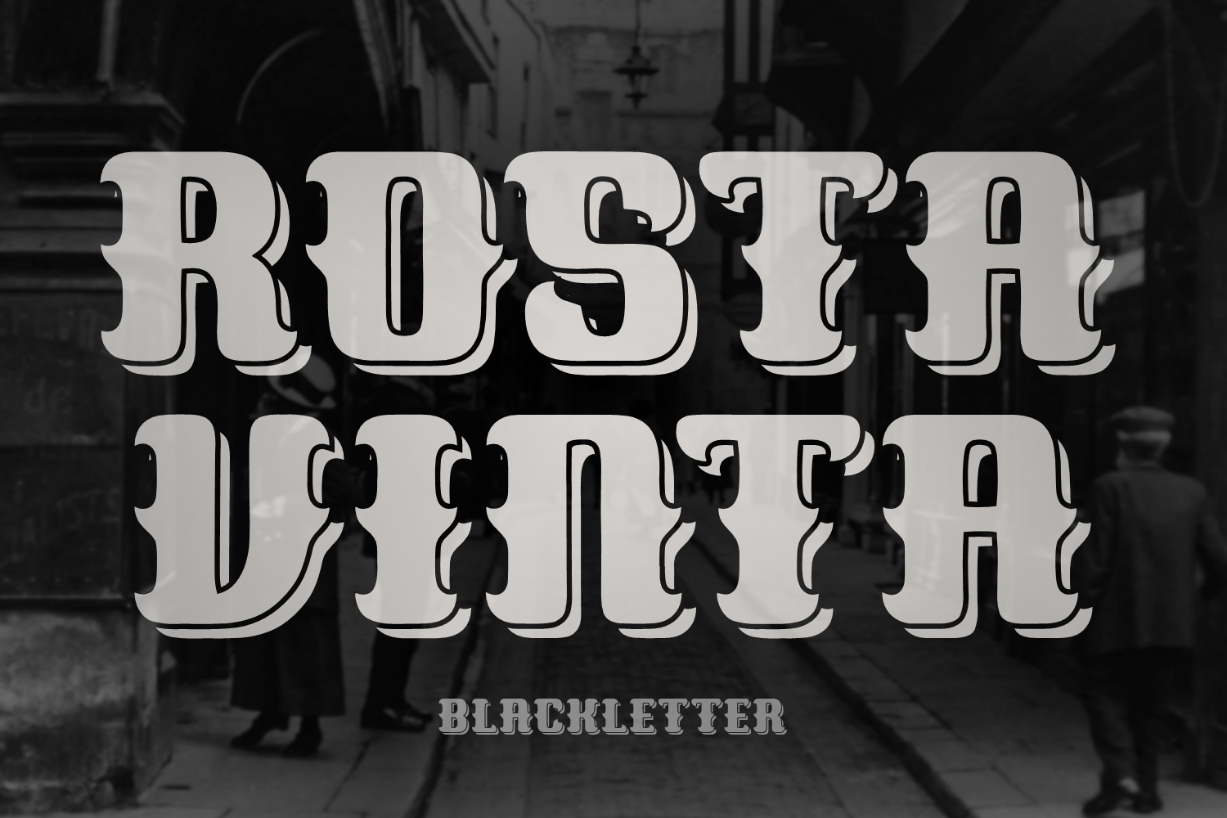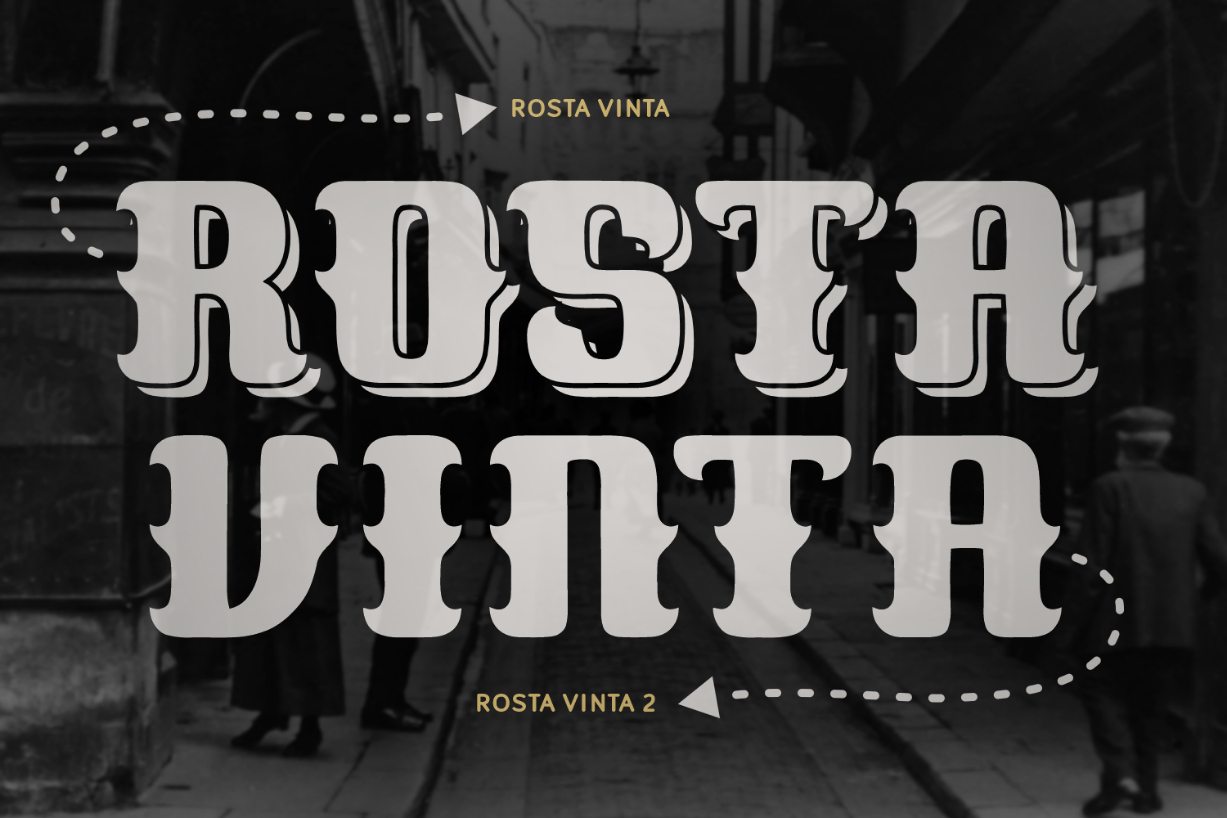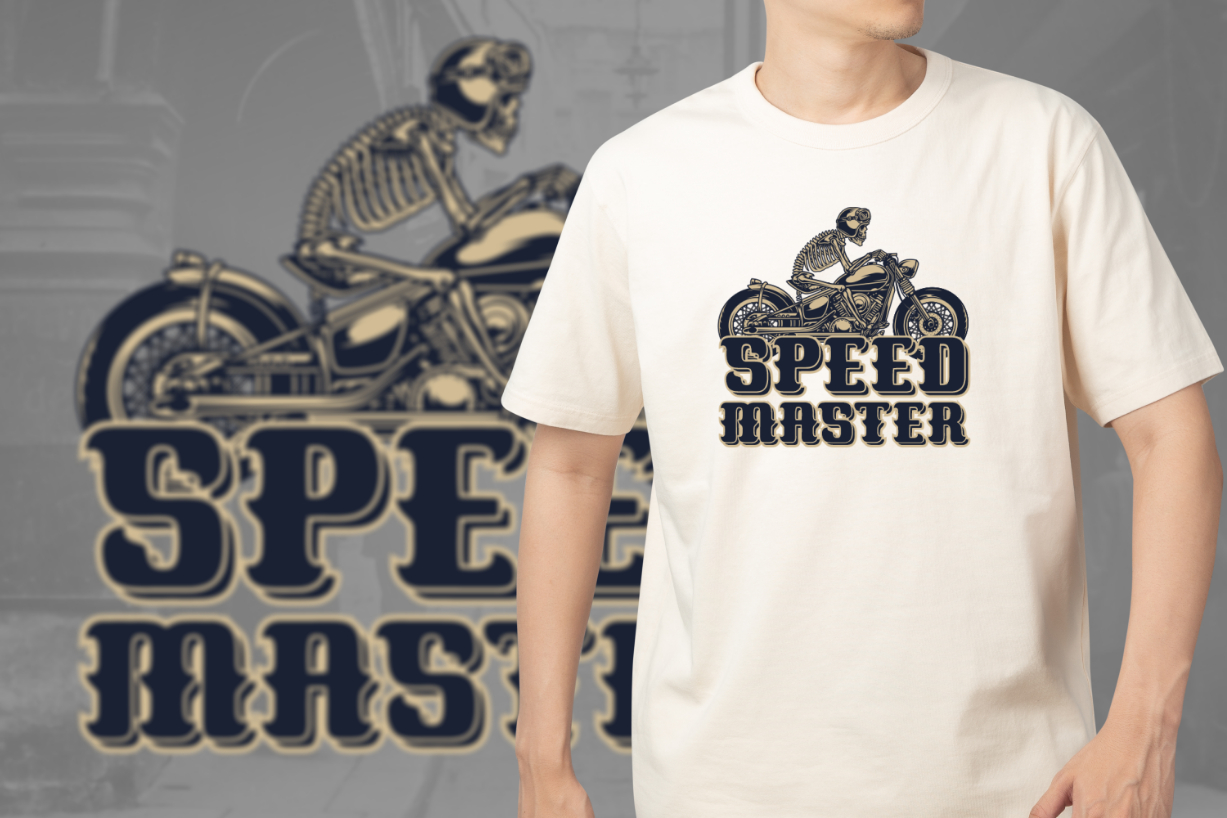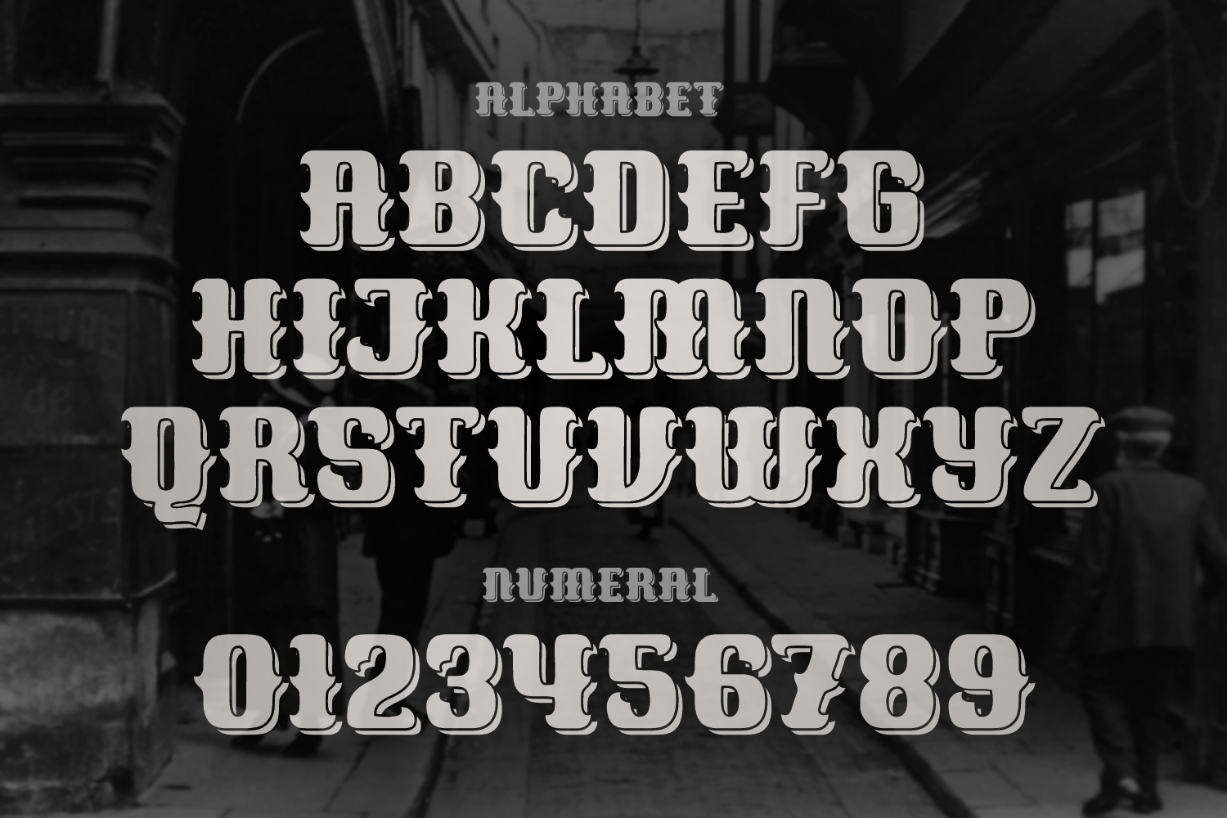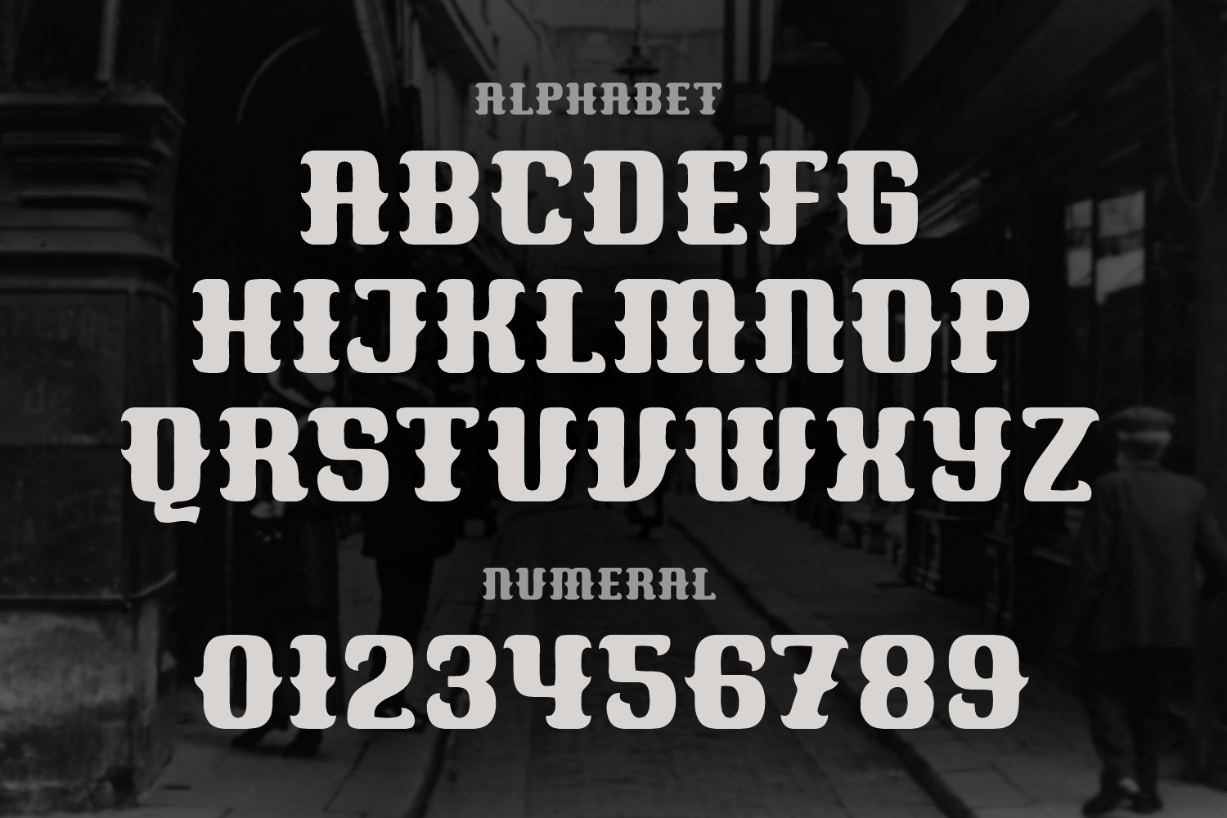
Rosta Vinta Font
About Rosta Vinta Font
Rosta Vinta is a bold and stylish blackletter font that adds a touch of vintage flair to your projects. Its unique and intricate design brings a classic, yet contemporary edge to your text. Perfect for giving your creations a strong and distinctive look, Rosta Vinta is an excellent choice for anyone seeking a blend of tradition and modernity in their typography.